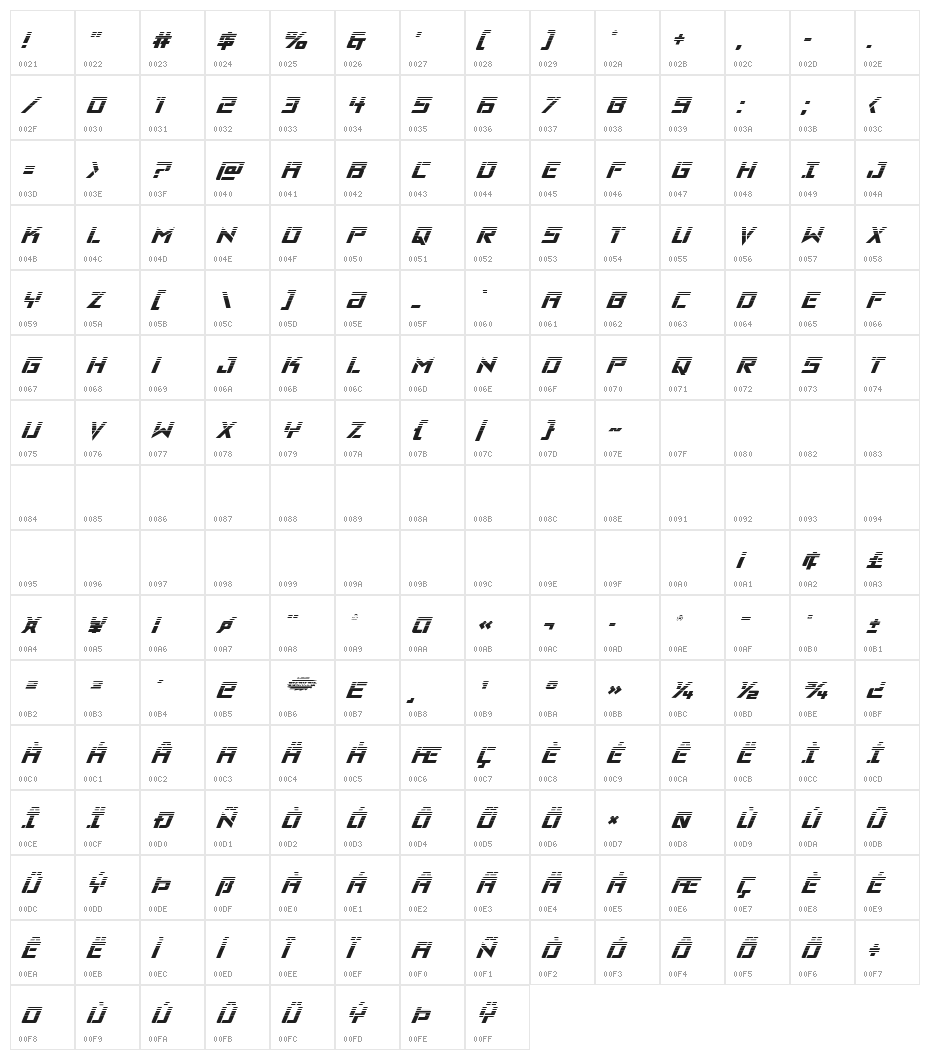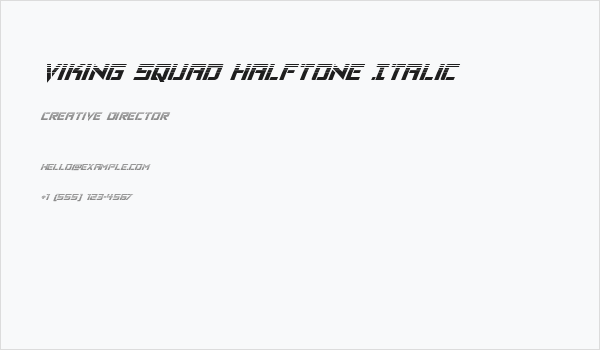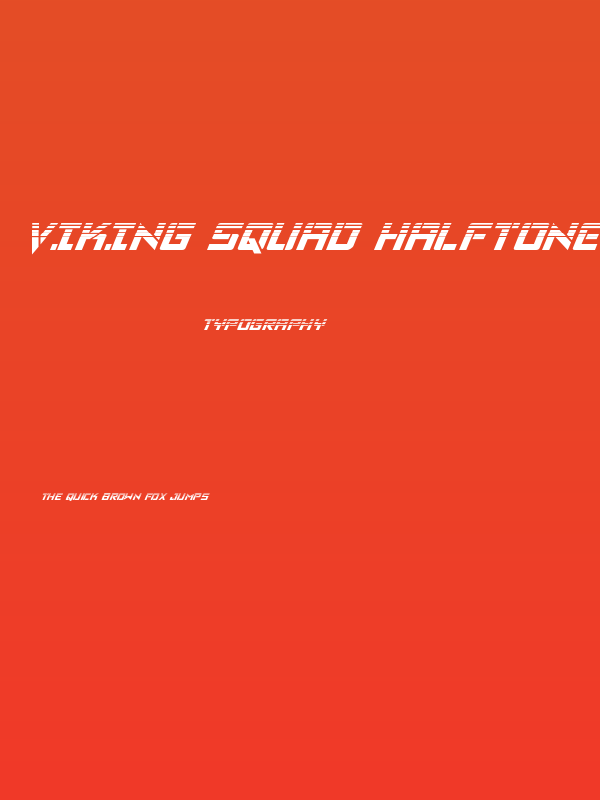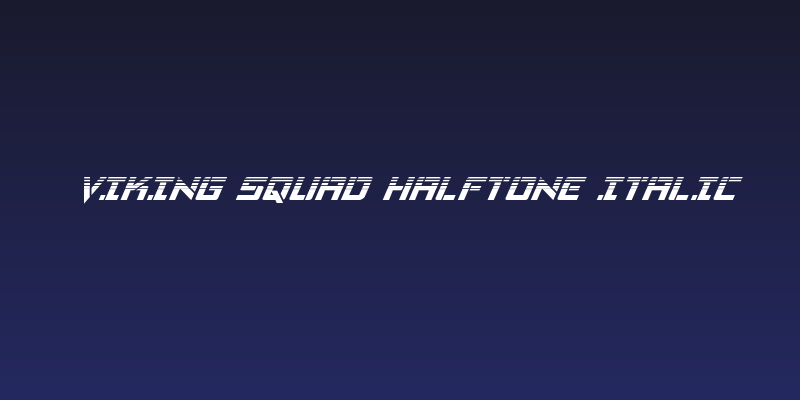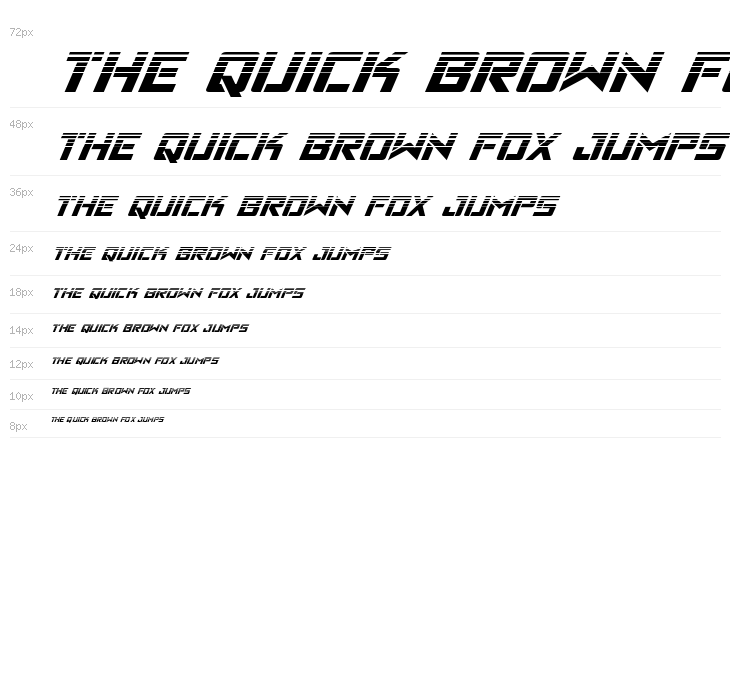
Viking Squad Halftone Italic Font
Viking Squad Halftone Italic Description
This font features a bold, angular design with a distinct halftone effect that gives it a dynamic and modern appearance. The characters are italicized, adding a sense of motion and energy. The uppercase letters are particularly striking, with sharp edges and a futuristic style. The numbers and special characters maintain this bold and edgy aesthetic, making the font suitable for attention-grabbing designs. The spacing between characters is tight, enhancing the compact and impactful look. The high contrast in stroke thickness further emphasizes the boldness of the design.
| Proposed Projects | Ideal for sports team branding, video game titles, or sci-fi themed posters. |